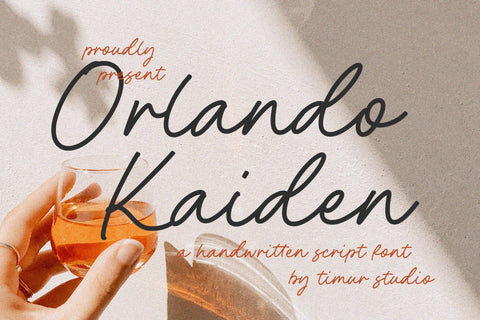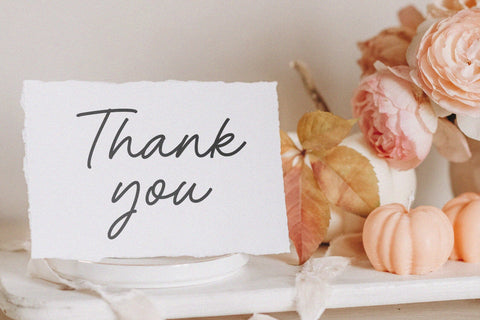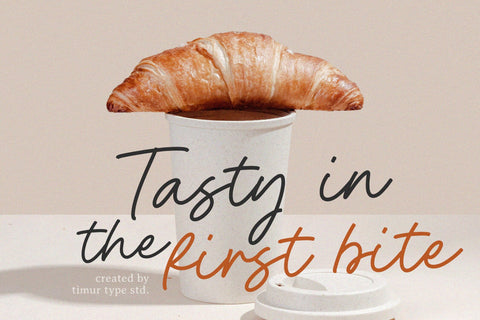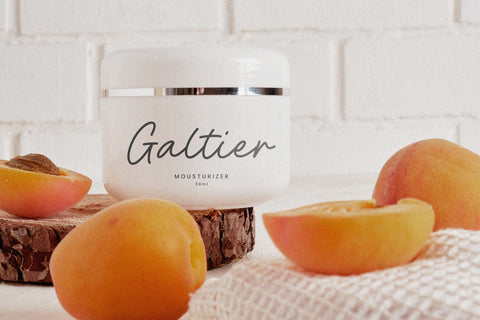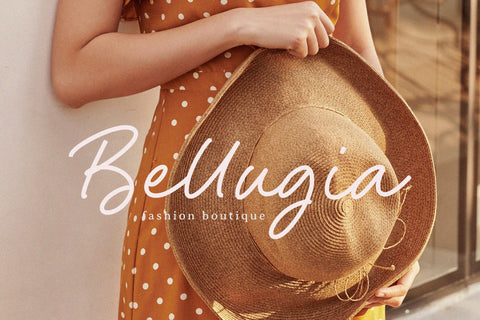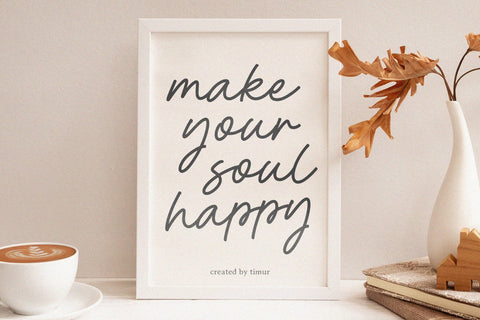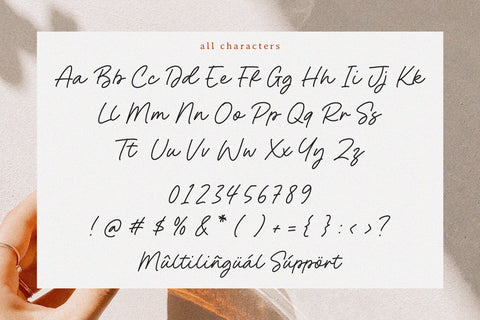
Orlando Kaiden - Handwritten Script Font
Orlando Kaiden is a Handwritten Script Font
This font is a stylish handwritten script font that blends modern elegance with natural flow, featuring smooth curves and refined strokes. Perfect for logos, invitations, and branding, it exudes charm and sophistication in every letter.
Orlando Kaiden Font also supports multilingualism